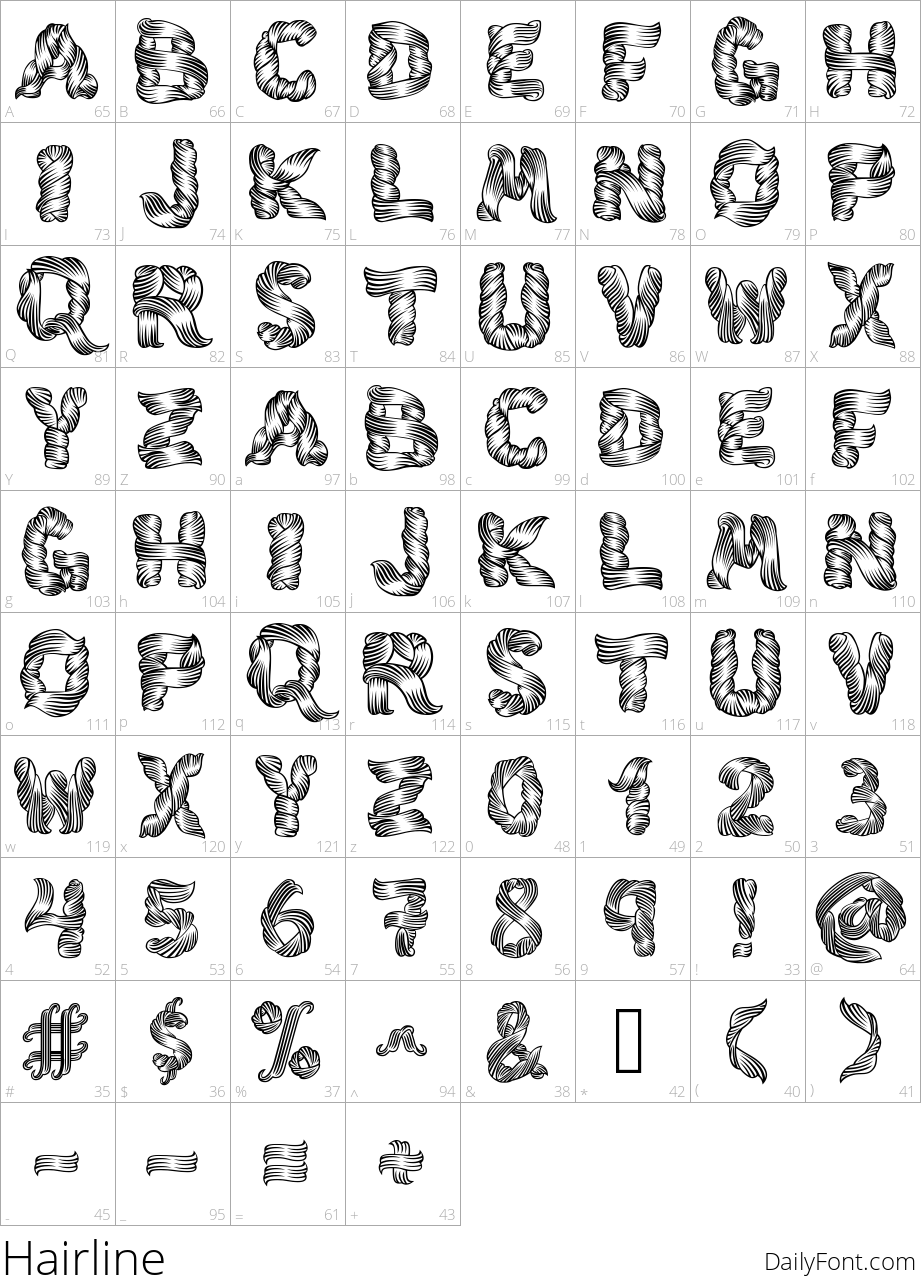
Hairline
Hairline is an exquisitely crafted display font that captures the delicate essence of curly hair. With its intricate detailing and graceful curves, this font offers a soft yet striking appearance, making it an ideal choice for projects that demand a touch of originality. Whether you are designing a logo, creating a poster, or developing branding materials, Hairline provides a whimsical character that stands out from conventional typefaces. Its unique styling lends itself to artistic expressions, inviting creativity and personalization in every use.
Utilize Hairline in your next design endeavor for a charming and approachable feel. Perfect for children’s products, fashion branding, or any creative work that seeks a playful sophistication, this font will engage your audience and leave a lasting impression. Embrace the beauty of Hairline and elevate your designs with its distinctive flair, ensuring your projects resonate with their intended message while captivating viewers with its unique aesthetic.